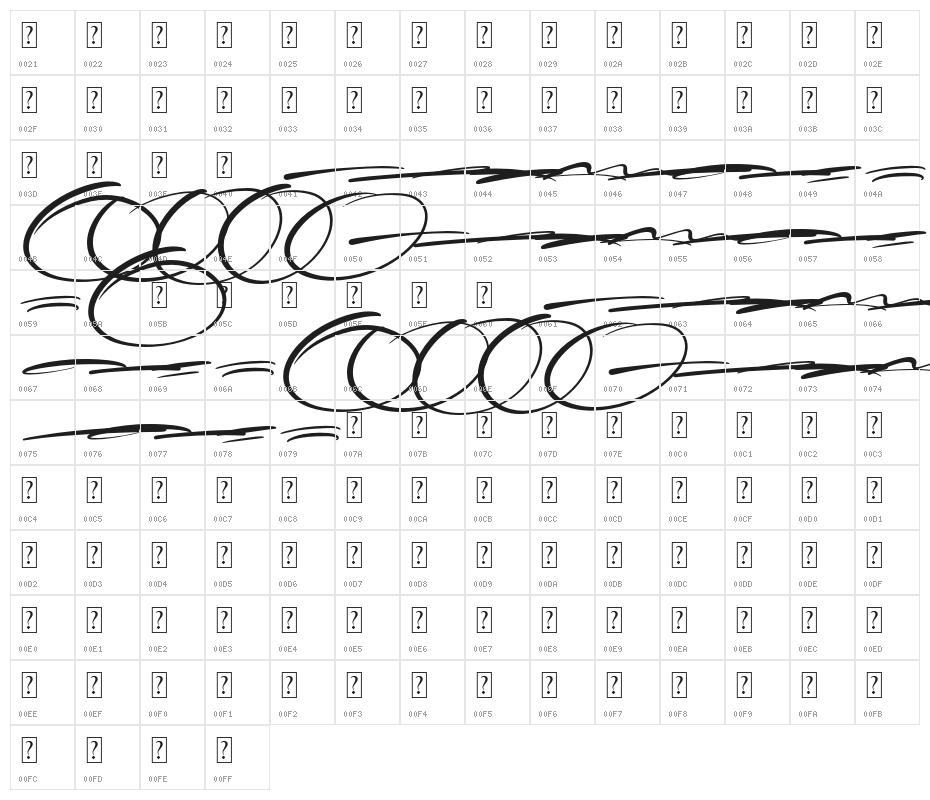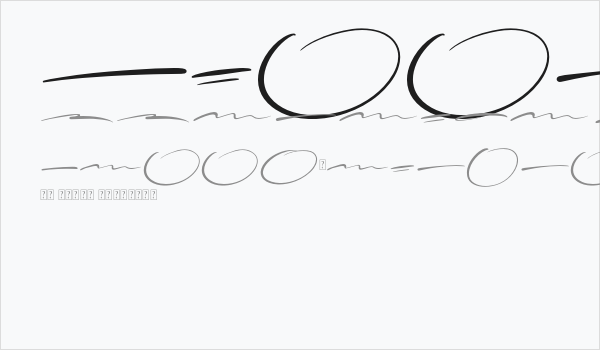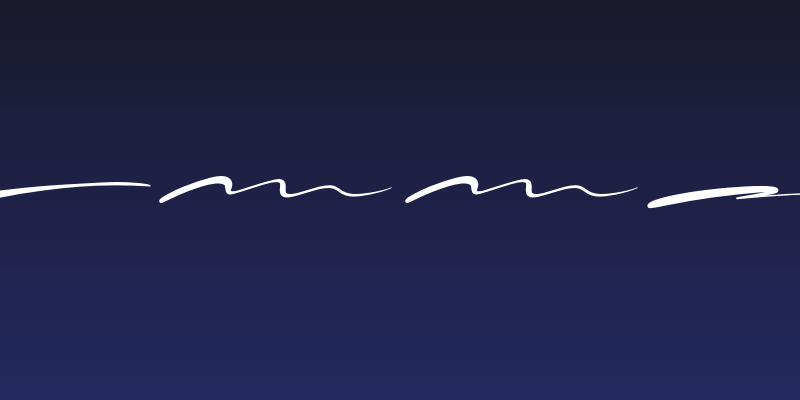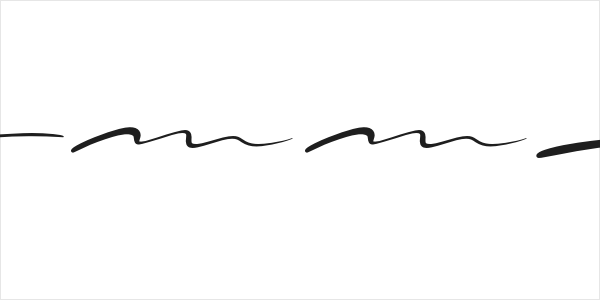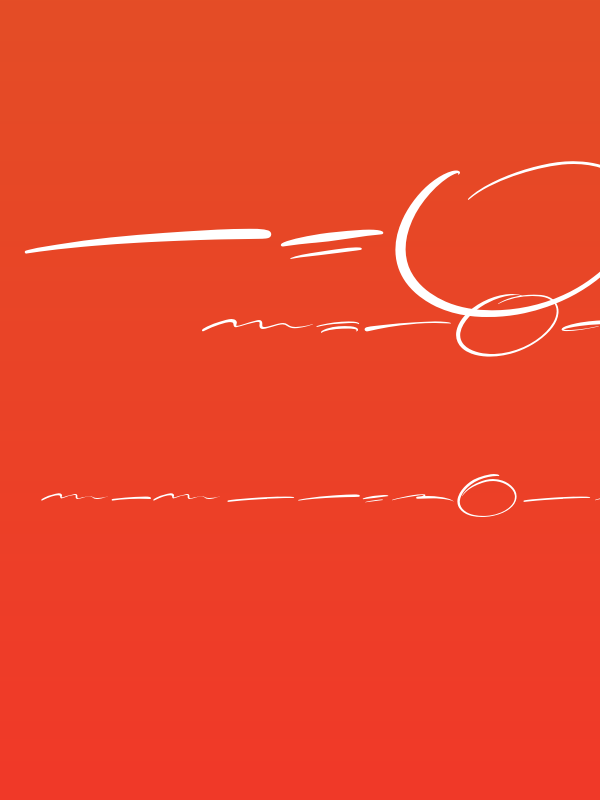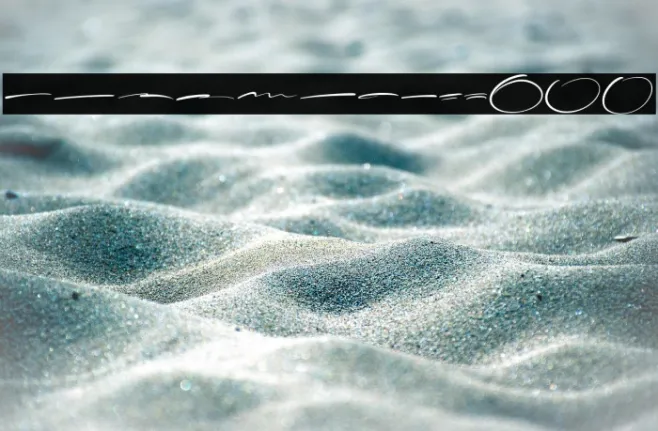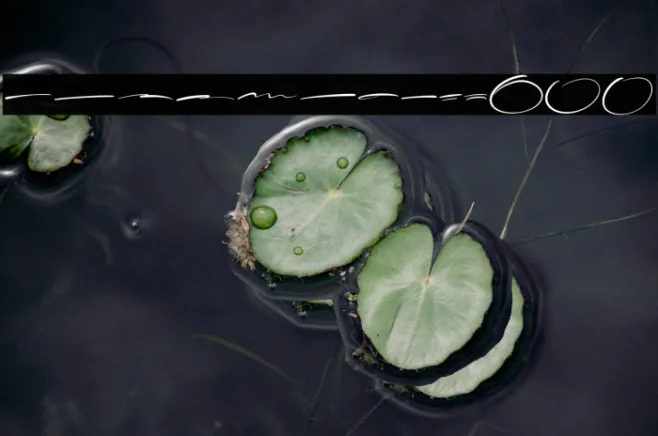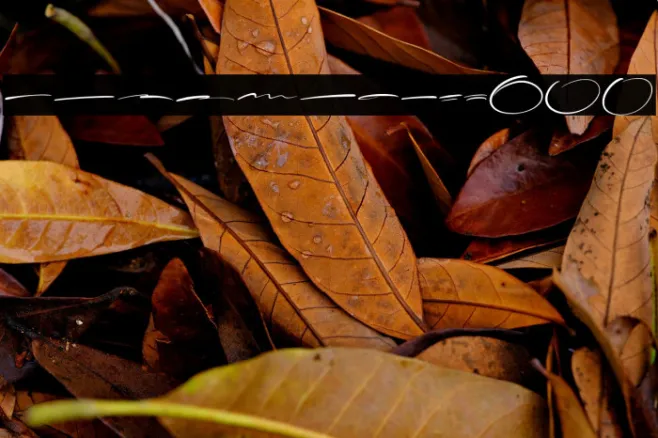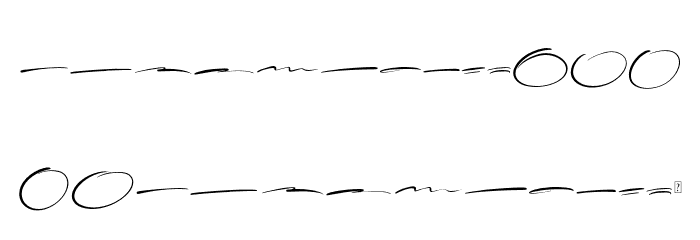
FillateSwash Font
FillateSwash Description
This font features a highly decorative and artistic style, characterized by elegant swashes and flourishes that extend from the main strokes of the letters. The design is reminiscent of calligraphic handwriting, with a fluid and dynamic appearance. Each character is crafted with intricate details, making it suitable for creative and expressive design projects. The font's unique style adds a touch of sophistication and flair, making it ideal for use in branding, invitations, and other projects where a distinctive and artistic look is desired.
| Proposed Projects | Ideal for branding, invitations, artistic projects, and any design requiring a sophisticated and expressive touch. |